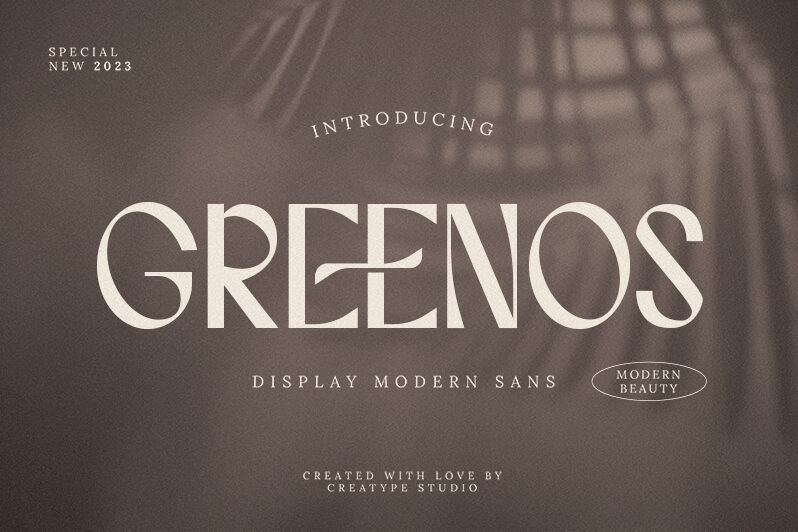
Greenos
Greenos font by Creatype Studio is a free display font with a stylish retro design. The typeface is elegant, stylish, and modern making it harmonious with the latest graphic design trends. At the same time, the characters are geometric and minimal which makes them extremely easy to read especially as titles or in large sizes.
This font suits branding projects including logo designs and monograms. It will level up packaging projects especially for high-quality products such as food, beverages, cosmetics, electronics accessories, clothing pieces (tags and labels), and more. It also fits posters, invitations cards (wedding/party/event), magazine covers/headlines, social media posts/stories/reels covers…